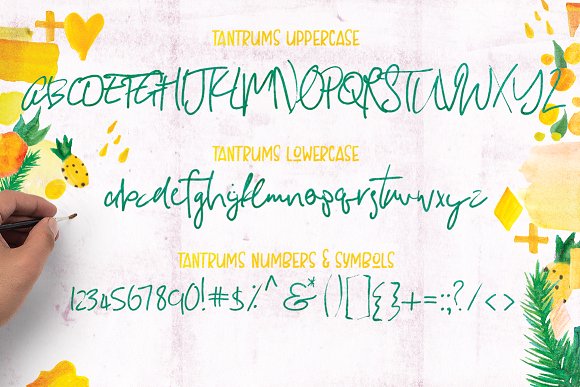
Tantrums Font
Introducing Tantrums Font, the must-have font for adding a touch of whimsy and creativity to your designs. This enchanting script font flows effortlessly, capturing the essence of handwritten beauty.
Expertly crafted by Creativeqube Design, Tantrums Font exudes a playful and captivating character that will elevate your projects to new heights. Its unique ligatures and charming swashes create a symphony of movement, adding a touch of intrigue and personality to every word.
With Tantrums Font, you can unleash your imagination and create:
* Stunning invitations that evoke a sense of joy and celebration
* Captivating posters that draw attention and inspire action
* Eye-catching branding materials that leave a lasting impression
* Heartfelt greeting cards that convey your emotions with flair
* Enchanting social media graphics that engage and captivate your audience
But beyond its aesthetic appeal, Tantrums Font is also remarkably versatile. Its natural flow and delicate strokes make it perfect for a wide range of design projects, from elegant logos to playful packaging. Whether you're a seasoned designer or a creative enthusiast, Tantrums Font will become your go-to choice for adding a touch of charm and uniqueness to your work.